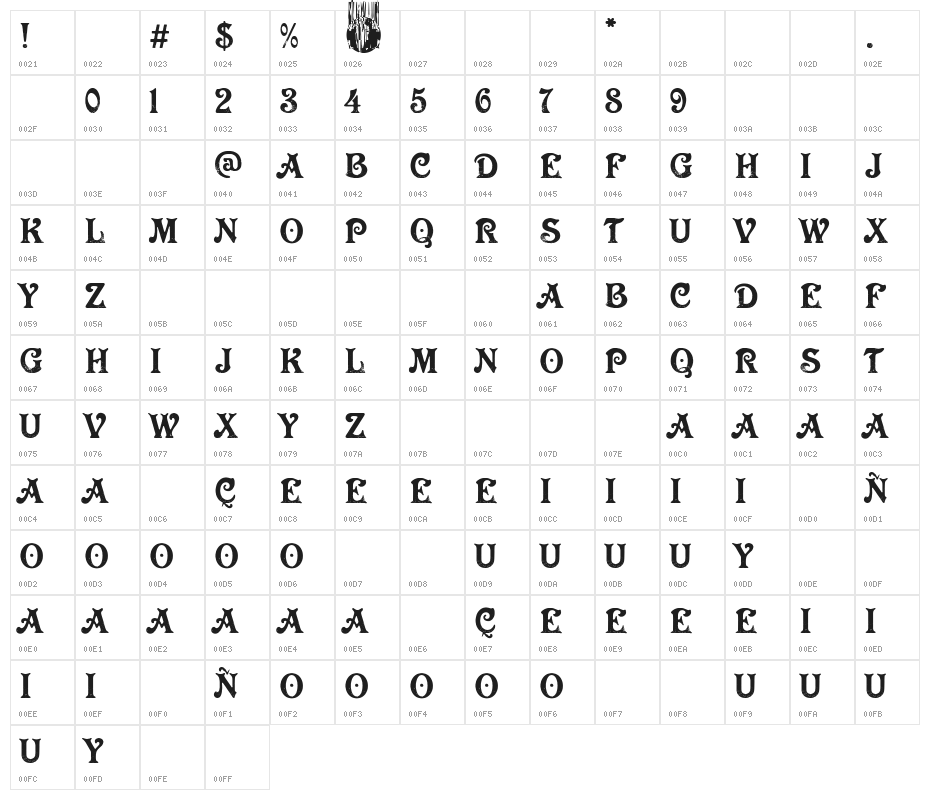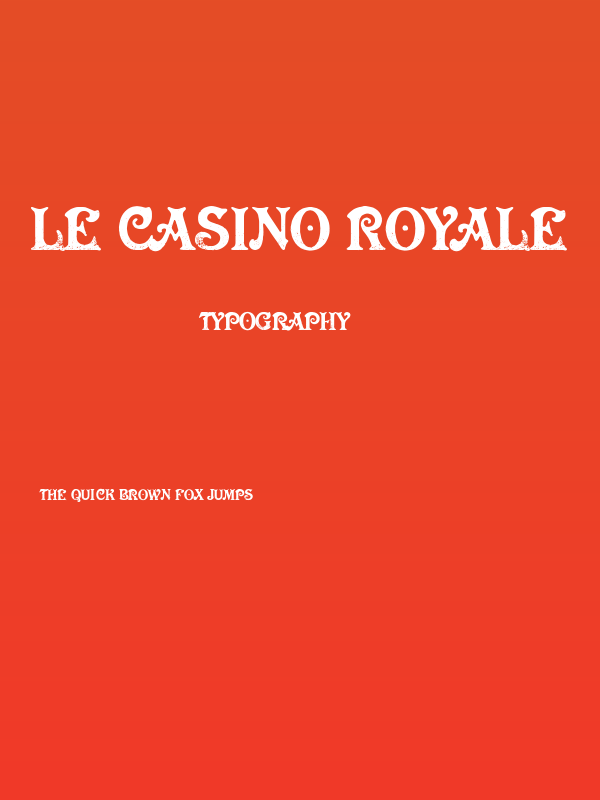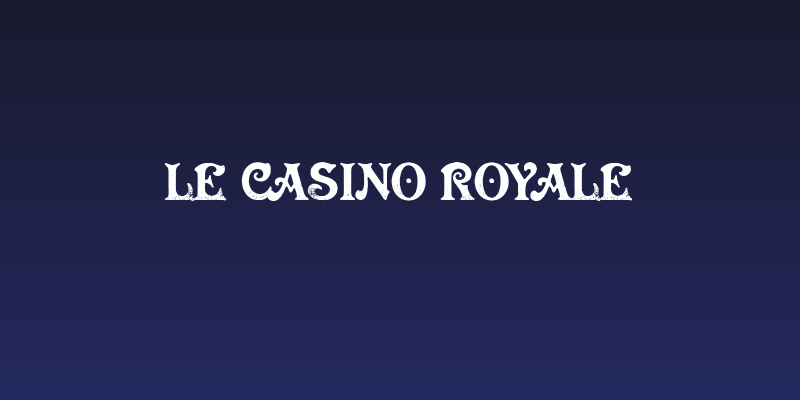
Le Casino Royale Font
Le Casino Royale Description
This font exudes a vintage and decorative style, characterized by its bold and ornate letterforms. Each character is designed with a distressed texture, giving it a worn, classic look reminiscent of old signage or posters. The uppercase and lowercase letters maintain a consistent style, with flourishes and embellishments that add to its decorative appeal. The numbers and special characters follow the same design ethos, ensuring a cohesive appearance across all elements. The font's unique style makes it stand out, ideal for projects that require a touch of nostalgia and elegance.
| Proposed Projects | Ideal for vintage-themed posters, retro branding, event invitations, and signage that require a classic and decorative touch. |